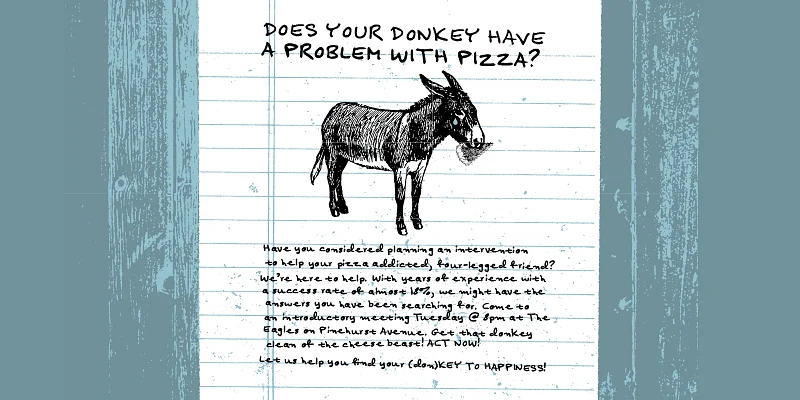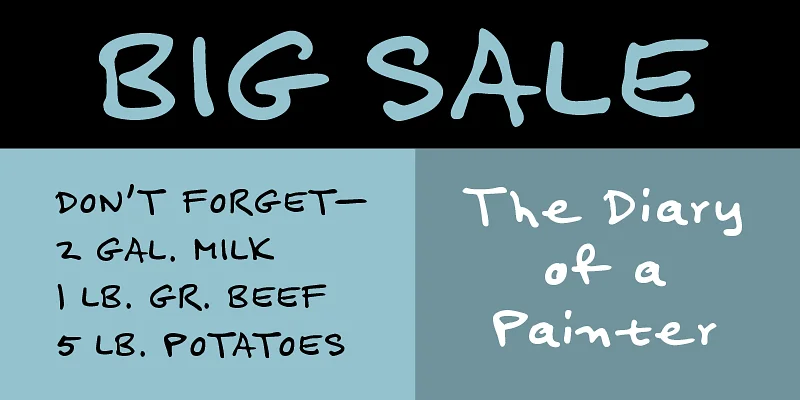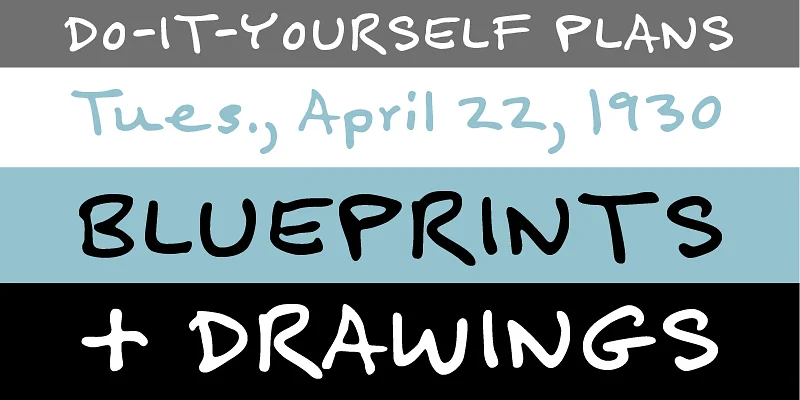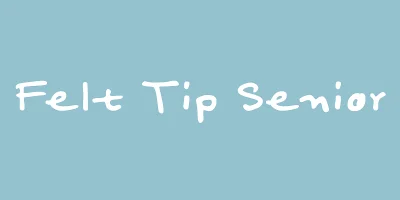
Felt Tip Senior Font
The Felt Tip Senior Font is perfect for retirement community branding, senior lifestyle magazines, mature adult education materials, healthcare communications for seniors, wisdom-focused publications, grandparent-themed designs, senior travel brochures, mature audience marketing campaigns, retirement planning materials, and dignified senior services communications.
What makes the Felt Tip Senior Font so exciting is its thoughtful combination of mature sophistication with comfortable felt-tip readability that creates an ideal typeface for senior-focused communications that honor wisdom and experience. This distinguished typeface features clear felt-tip strokes, comfortable character spacing, and mature design sensibilities that perfectly capture the essence of dignified aging and lifelong learning. The font's mature personality and accessible authenticity make it an exceptional choice for senior services, healthcare providers, and lifestyle brands seeking to communicate respect, wisdom, and genuine care for mature audiences with thoughtful visual consideration.
The Felt Tip Senior Font family includes mature variations and comfortable alternates, featuring multiple readable textures, accessible character options, and senior-friendly styling elements. Each variation maintains the signature dignified appeal while offering different levels of visual comfort and mature sophistication, giving designers extensive possibilities for crafting respectful communications and thoughtful brand personalities that honor senior experiences and wisdom.
This exceptional Felt Tip Senior Font represents the perfect mature typography solution for organizations who want to infuse their projects with authentic respect and comfortable accessibility that resonates with senior communities and mature audiences. Whether you're developing senior service identities, creating healthcare communications, or designing retirement lifestyle content, this versatile mature font delivers dignified results that connect with audiences seeking genuine respect and thoughtful consideration.
The comfortable design characteristics of Felt Tip Senior Font showcase masterful accessible typography craftsmanship, with each letter featuring clear felt-tip construction and mature design elements that enhance readability and visual comfort for senior audiences. The font's comprehensive character set includes uppercase and lowercase letters, numerals, accessible punctuation, and senior-friendly symbols, ensuring complete functionality for diverse mature audience projects and international senior communications.
Specifically designed for both digital and print senior applications, this thoughtful font maintains its felt-tip character and mature accessibility across various sizes and formats. From large-scale senior center signage to detailed healthcare materials, Felt Tip Senior Font performs exceptionally while preserving its distinctive dignified personality and comfortable senior-focused appeal.